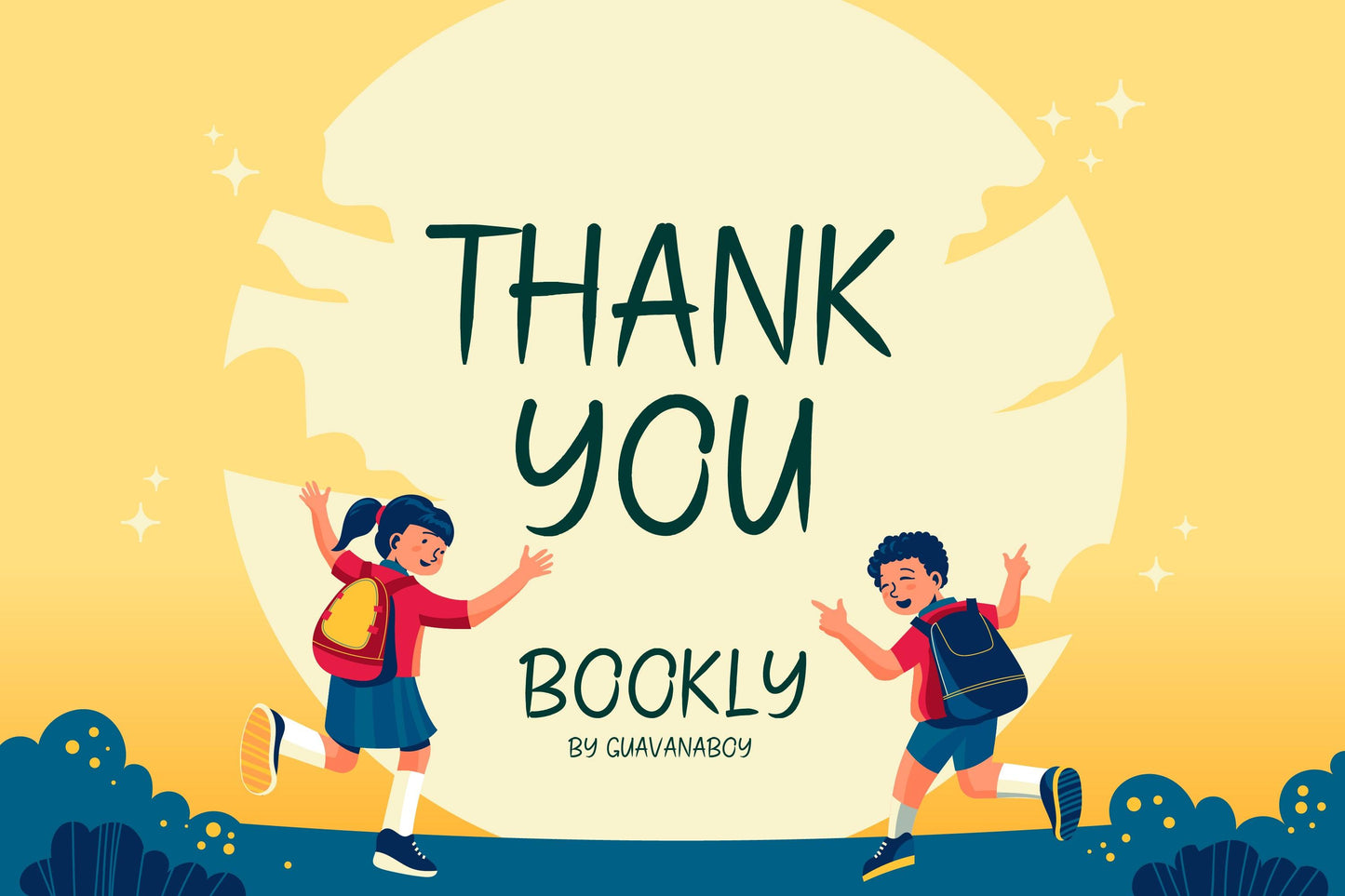
Bookly - School and Collage with Stylish book font
Bookly is a Stylish Book Font designed to bring elegance and readability to your creative projects. With its clean lines and refined curves, this font is perfect for book covers, editorial designs, branding, posters, social media graphics, and more. Whether you’re working on a classic novel, a modern magazine, or a branding project, Bookly offers a versatile and sophisticated aesthetic that will captivate your audience.
- Complete Character Set: Includes uppercase, lowercase, numbers, punctuation, and multilingual support.